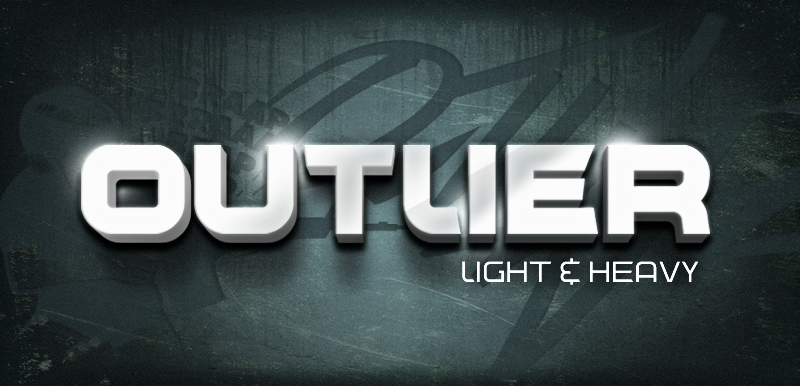
Outlier Rail
Outlier Rail is a bold and striking display font that exudes a distinct techno-inspired aesthetic. Designed by Michael Muranaka, this expanded font showcases an eye-catching combination of sharp angles, clean lines, and a minimalist sensibility.
The font's unique character is amplified by its expansive width, lending it a sense of power and presence. Outlier Rail's sleek, modern design makes it a versatile choice for a variety of applications, from eye-catching headlines and logo designs to dynamic branding and packaging.
Its striking visual impact makes it a compelling option for projects seeking a bold, contemporary typographic statement.
Your designs should make a statement. They should stand apart from the rest.
Outlier is a multipurpose capital font created for Team Outlier (outliervideo.com) in 2 weights: BOLD and Light. This font also includes symbols and foreign characters.
Give your logos, titles, and text an extra edge.